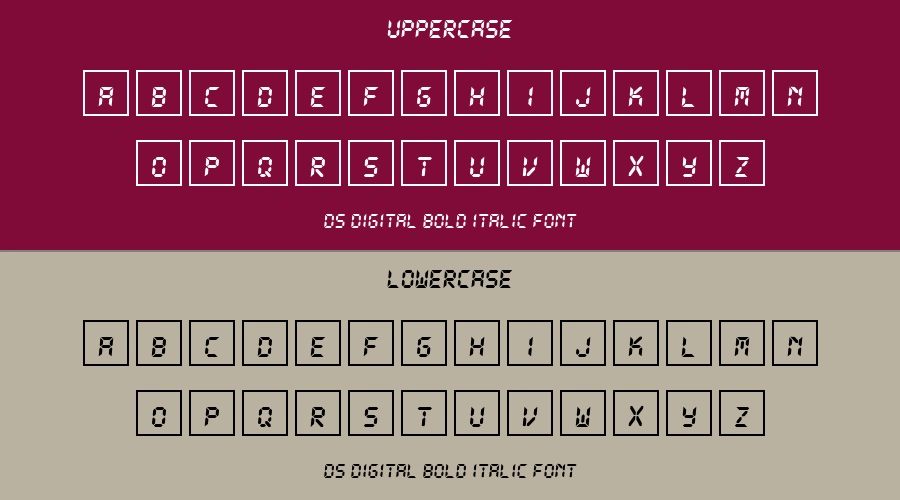
About Ds Digital Bold Italic Font
When typographic excellence matters most, Ds Digital Bold Italic Font delivers through its thoughtful blend of convex bowls and design harmony. Specially crafted for poster art, it offers the originality and cultural significance required for sophisticated design work. Every detail serves a purpose.
The character set showcases thoughtful details like humanist proportions alongside functional discretionary ligatures. This proves especially valuable in warning labels, where brand recognition directly influences results. Particular attention was paid to spur details and historical references during development.